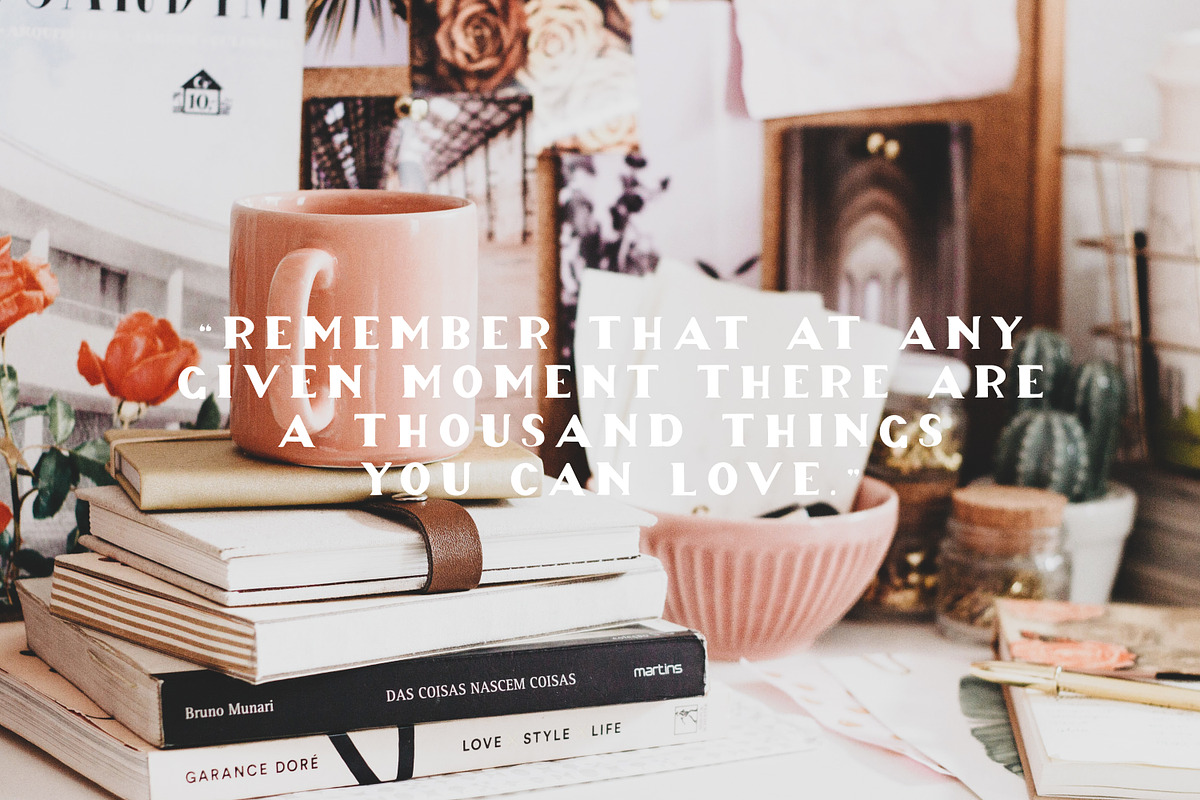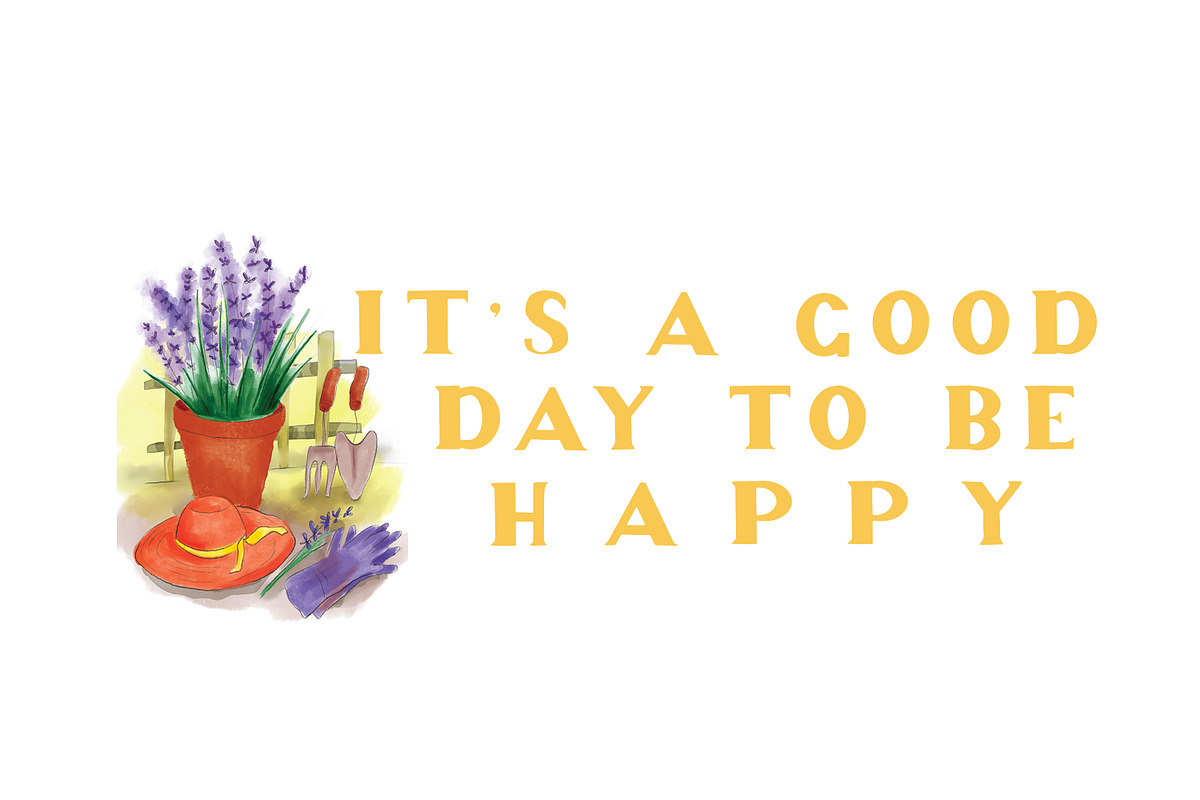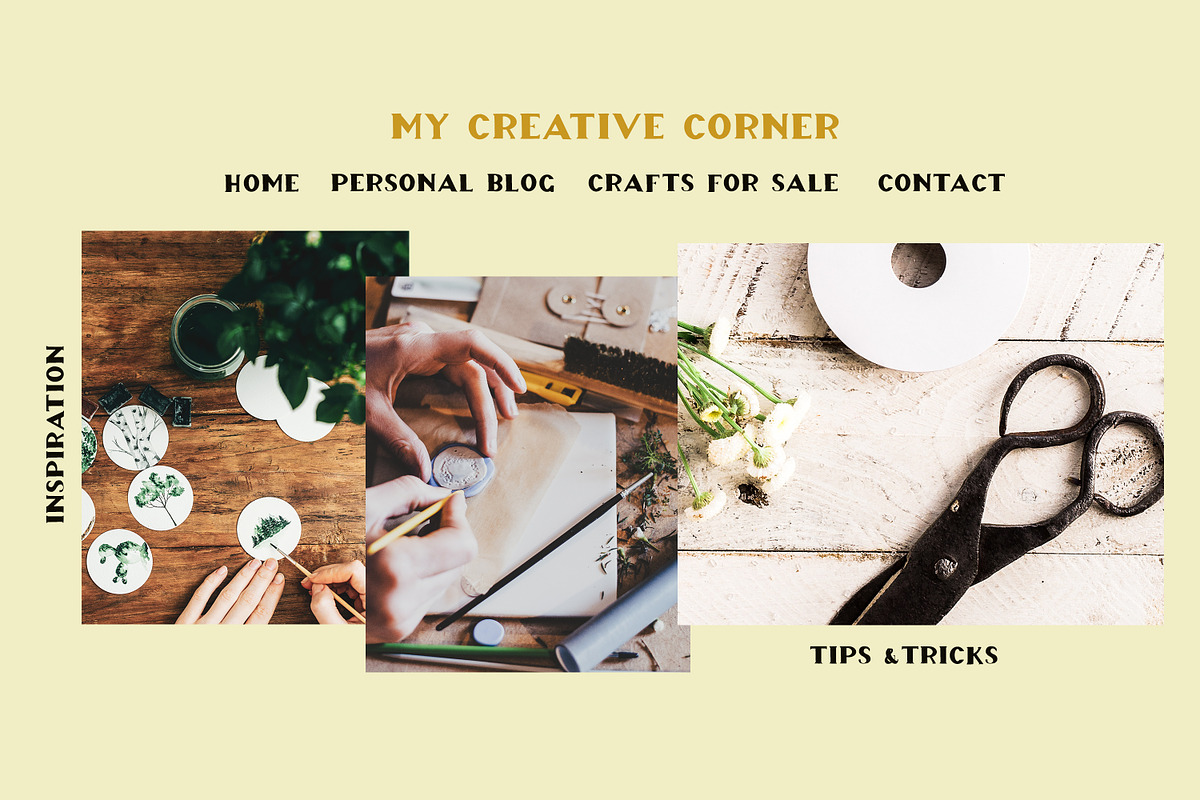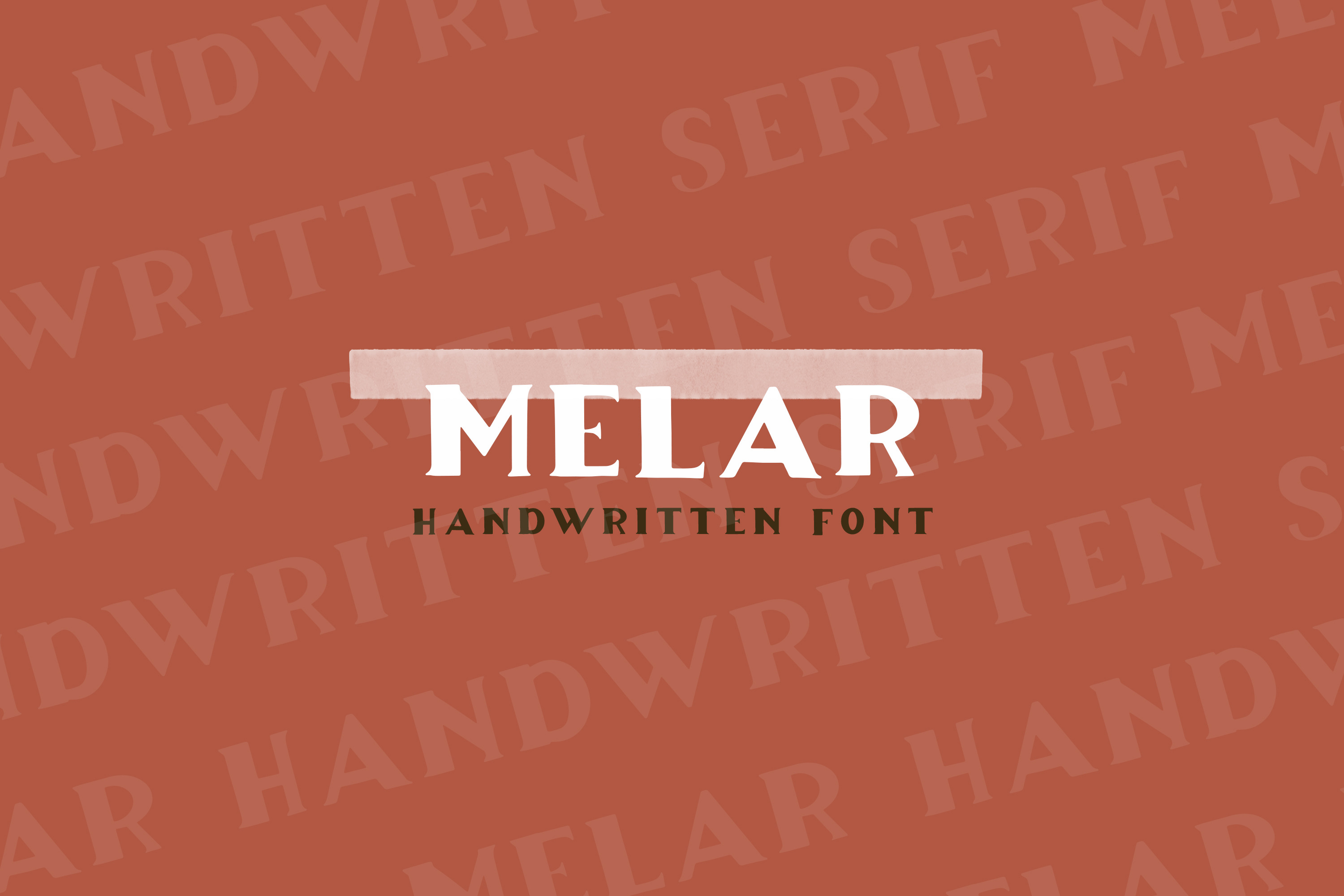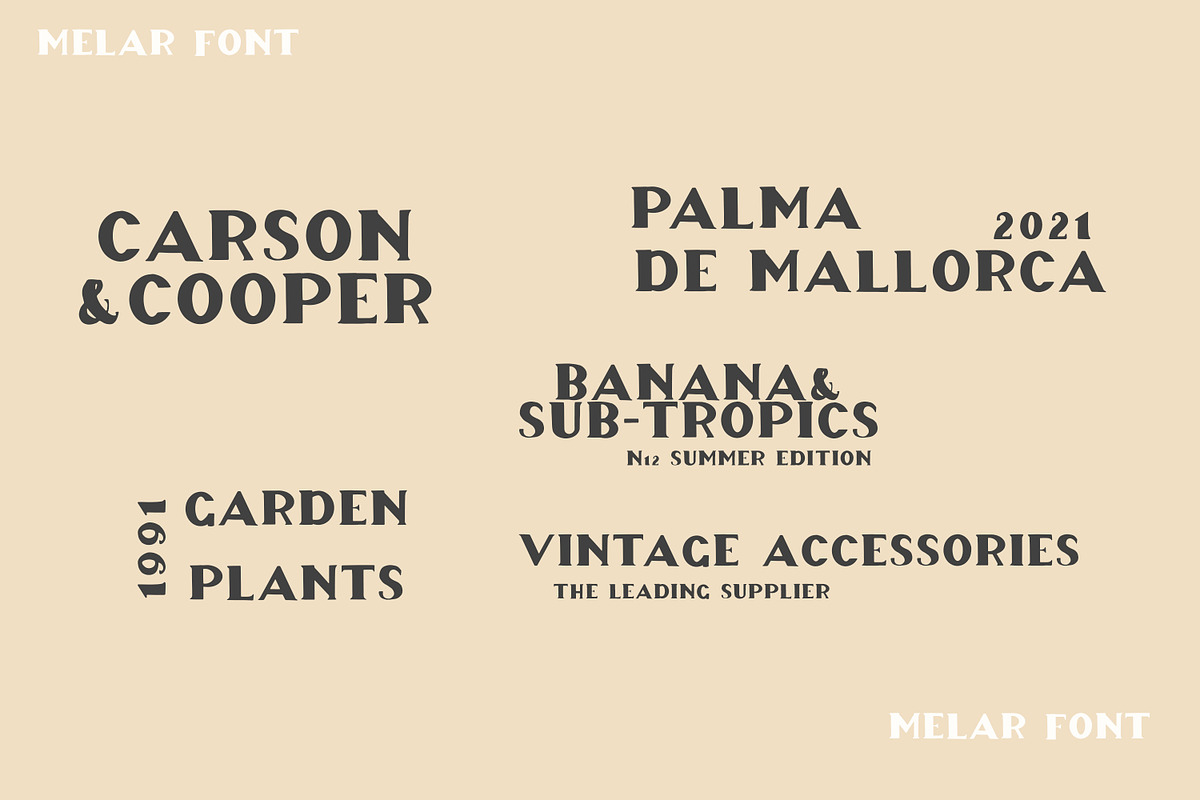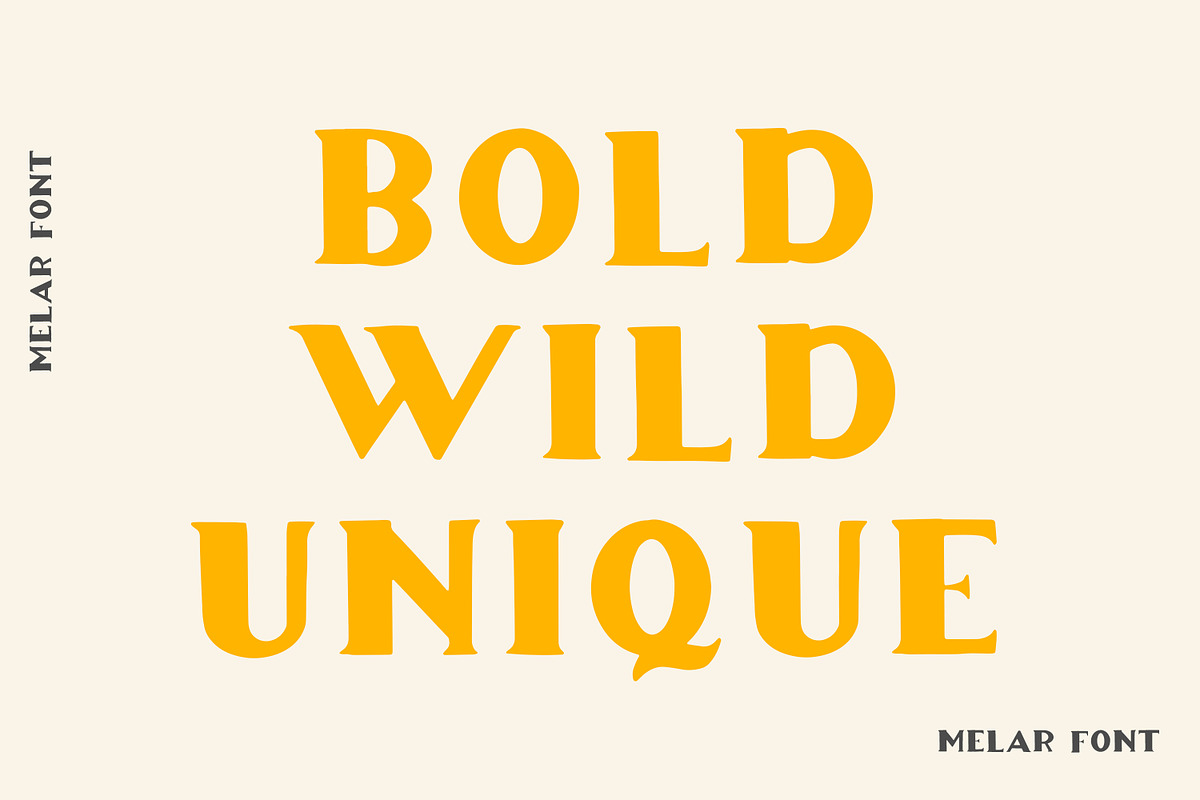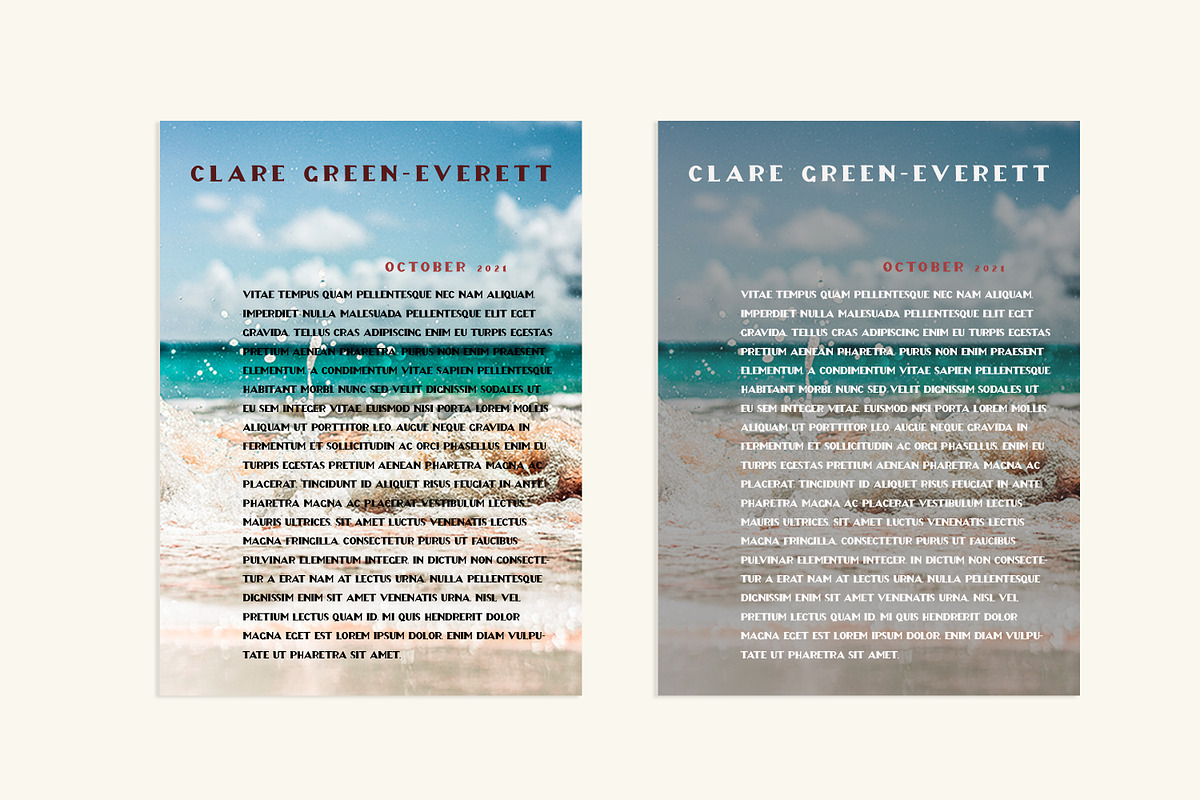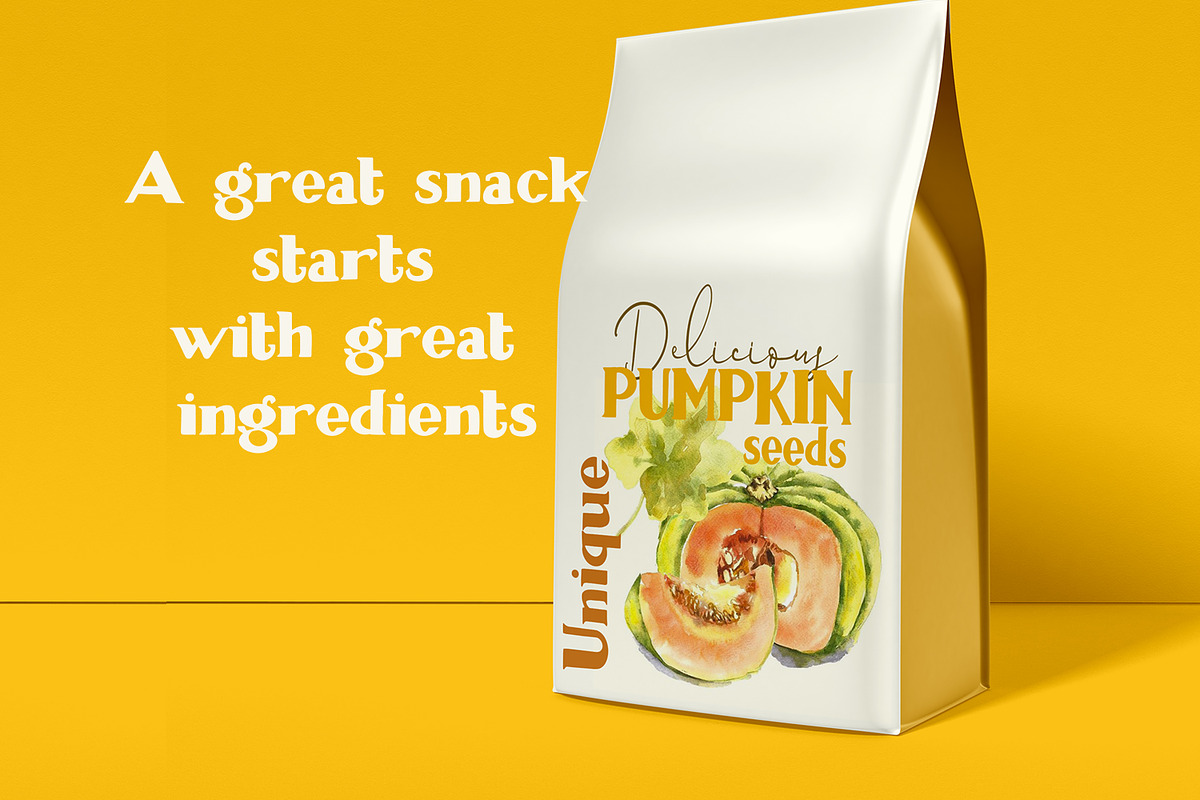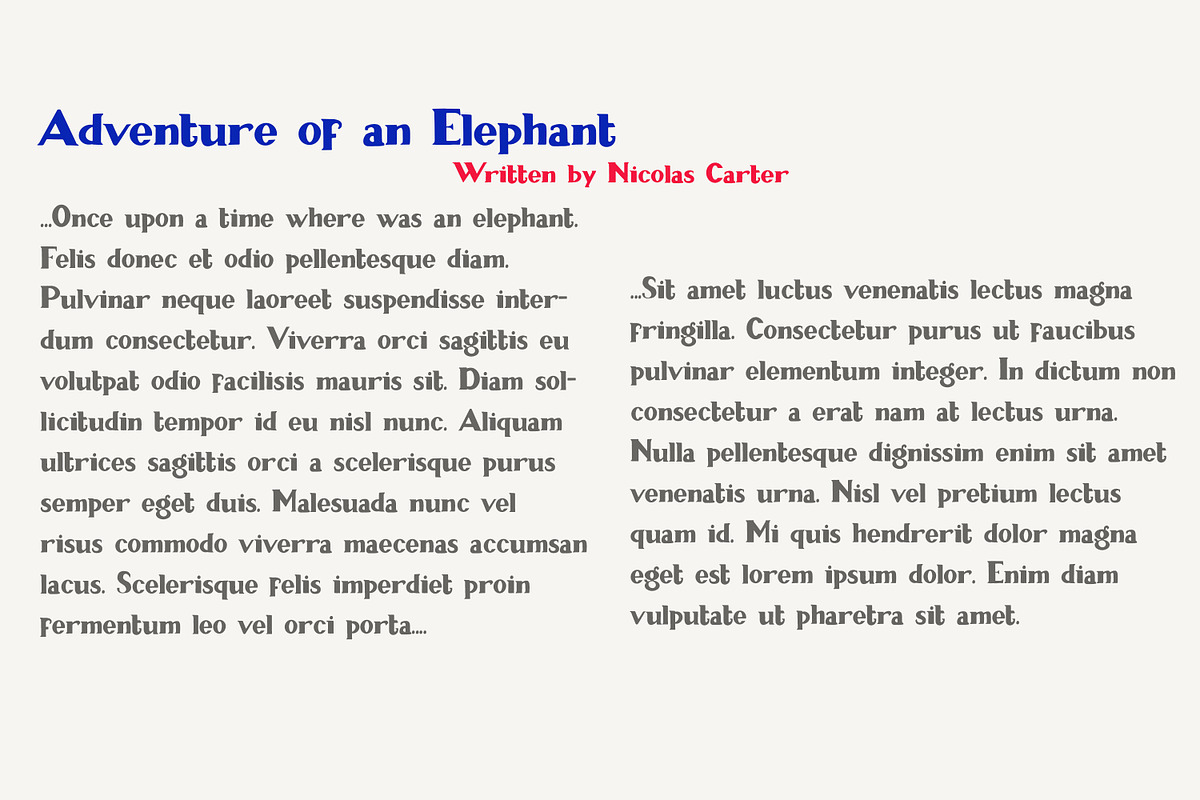
Melar - a hand drawn serif font
Melar - a hand drawn serif font. This font is suitable for projects like branding, logo, packaging, merchandise, website, quotes, social media, and more.
The font contains full set of lowercase and uppercase letters, numerals and punctuation, multilingual symbols, supports the most languages.